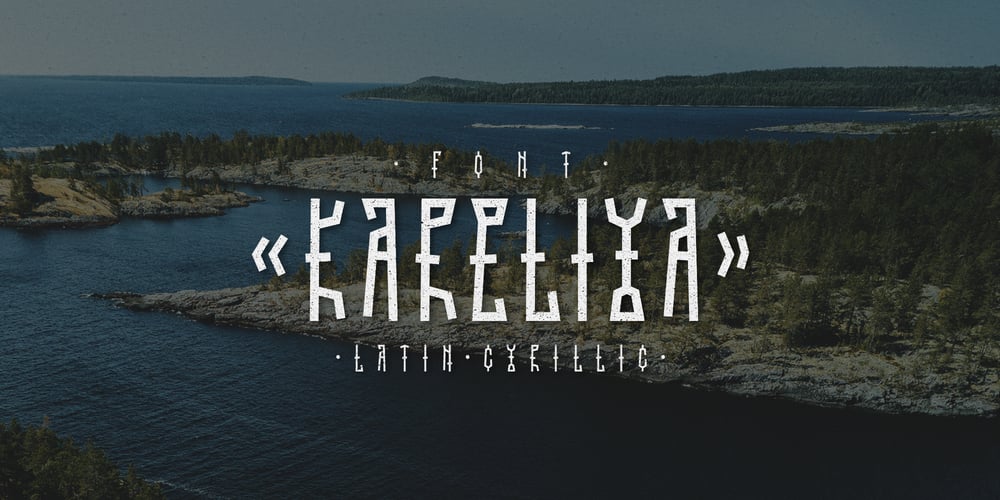
TD Kareliya Font Family was designed by Tektov Dmitry and published by Tektov Dmitry Type. TD Kareliya contains 1 styles and family package options. Font TD Kareliya.Supports:Cyrillic, Latin, Extended Cyrillic.Suitable for small volumes of text, titles, logos, illustrations, posters, packaging…